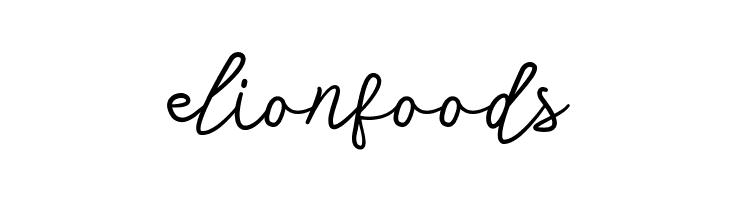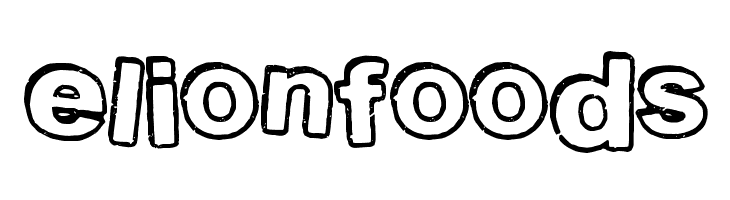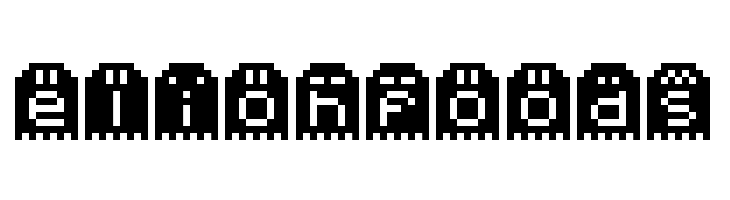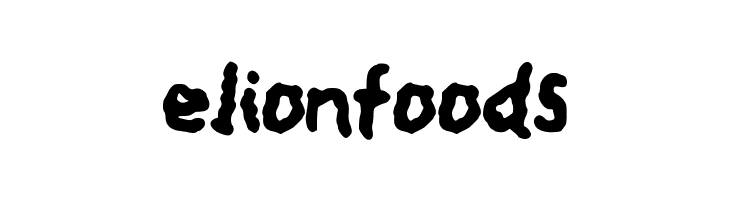
• Spooky Squiggles
A bold, playful font with a hand-drawn, spooky aesthetic.
• Spoopy Ghost Pixels
A pixelated, ghost-themed font with a retro arcade style.
• Spoopy Ghost Pixels
• SPORTVIPER
A bold, geometric font with a modern and assertive style.
• Springy
A playful, wavy font with a spring-like, dynamic design.
• Stalshine Demo
A playful, casual handwritten font with smooth, flowing strokes.
• StampInk
A playful, hand-drawn font with bold, outlined characters.
• Stanislaw_PersonalUSE
• starblack
A bold, geometric font with a modern and clean design.
• StarDancing
A bold, decorative font with a dotted texture and strong outlines.
• starlight - free for personal u
An elegant script font with flowing, interconnected letters and ornate flourishes.
• StarRising
A modern, artistic font with geometric shapes and thin lines.
• Stars in the sky
A flowing, cursive script font with a handwritten style.
• StarsStripesBullets
A bold, high-contrast serif font with a classic yet modern style.
• Start with Today
• Statix
A bold, geometric font with a modern, digital aesthetic.
• Steampunk DEMO by Marta van Eck
A decorative steampunk font with gear and cog motifs, perfect for vintage-themed designs.
• Steiner
A bold, geometric font with a futuristic and strong aesthetic.